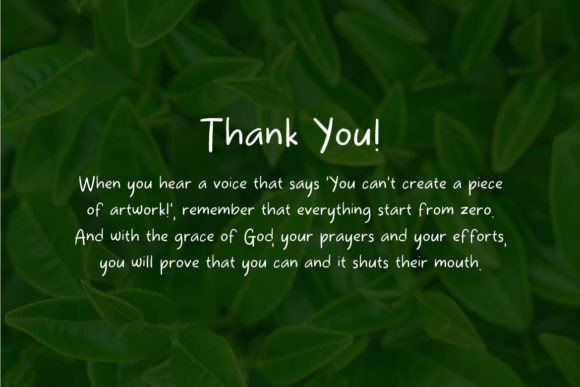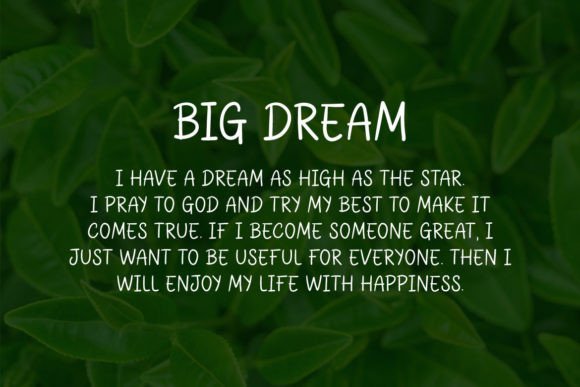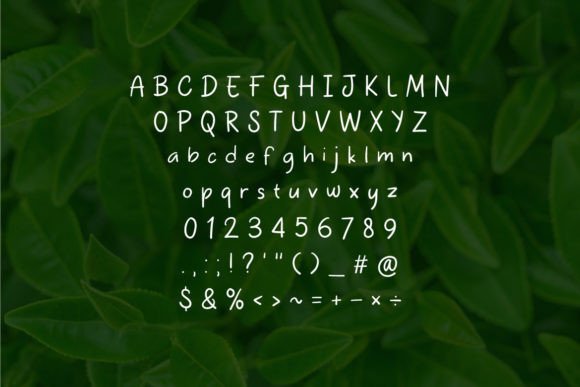
Introduction to Monday Tea Font
Monday Tea is a sweet and adorable handwritten font.
Monday Tea Font offers exceptional quality and versatility, making it a valuable addition to your design toolkit. Whether you’re creating for personal projects or commercial use, Monday Tea Font delivers professional results.